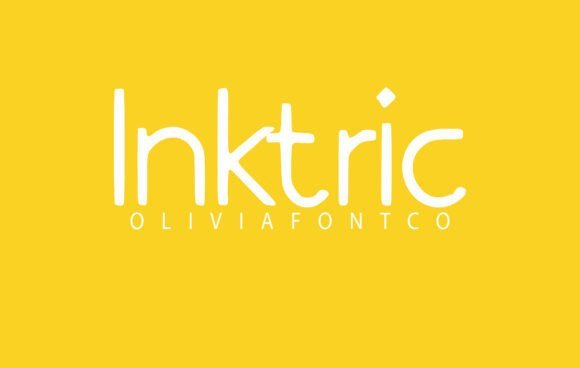
Meet the Inktric Font, a beautifully crafted handwritten font that will transport your designs to a world of romance and elegance. This expertly designed font is more than just a pretty face; it’s a powerful tool that will elevate your creative ideas to new heights. Whether you’re a seasoned designer or just starting out, the Inktric Font is an invaluable addition to your toolkit.
With its legibility and versatility, the Inktric Font is perfect for a wide range of designs, from magazine headlines to wedding invitations, social media, and branding. Get ready to fall in love with this charming font and unlock a world of creative possibilities.
Inktric Font Key Features
- Unique Characteristics: Inktric Font features a unique, hand-drawn design with intricate details and flourishes, making it perfect for adding a touch of elegance and sophistication to any design project.
- Script and Language Support: Inktric Font includes support for a wide range of languages, including Latin, Cyrillic, and Greek scripts, making it a versatile font for global design applications.
- Stylistic Sets: Inktric Font offers a range of stylistic sets, allowing designers to customize the font to suit their specific design needs and preferences.
- Professional and Elegant Design: Inktric Font is designed to evoke a sense of professionalism and elegance, making it perfect for use in corporate branding, advertising, and other high-end design applications.
Inktric Font Review
Overall, I found Inktric Font to be a decent addition to any design project, but with some notable limitations. Here’s my honest take.
- ✨ Elegant, hand-written feel that adds a touch of sophistication to designs.
- ✨ Great for headings and titles, especially when paired with more modern font families.
- ✨ Highly legible, even at smaller font sizes.
- ⚠️ Limited character set, which may cause issues for languages that require a wide range of characters.
- ⚠️ May not be suitable for body text, as it can be tiring to read in large quantities.
- ⚠️ Some letters may be difficult to distinguish from one another, especially for users with vision impairments.
Overall, I’d say Inktric Font is a solid choice for specific design applications, such as branding or advertising. However, it’s not a go-to font for body text or complex documents. With careful selection and pairing, it can add a touch of elegance to your designs.
Inktric Font Practical Application Guide
The Inktric Font is suitable for:
- Artistic or creative projects.
- Designing business cards or marketing materials.
- Creating digital art or illustrations.